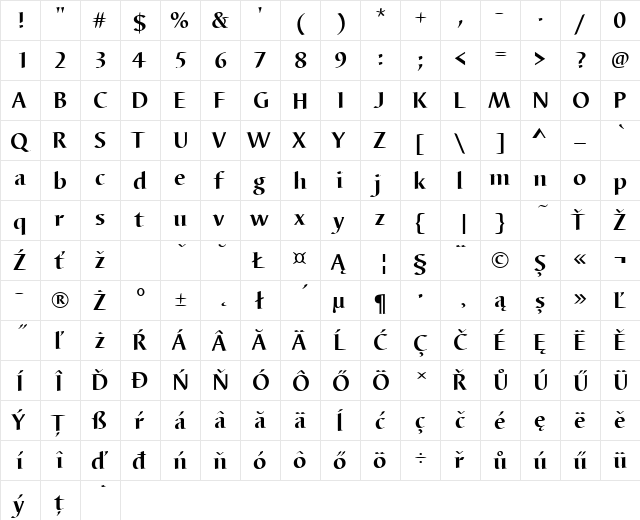
BarbedorTEE Bold Font Preview
BarbedorTEE Bold
Design Context for BarbedorTEE Typeface
BarbedorTEE is a composed and adaptable typeface that performs quietly and consistently across a wide range of design contexts. The heavy weight commands attention and anchors typographic hierarchies.